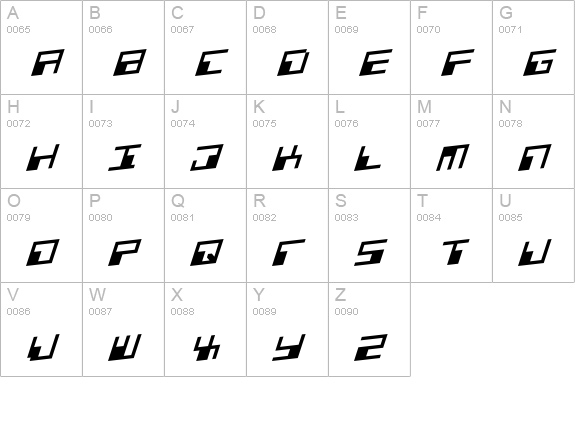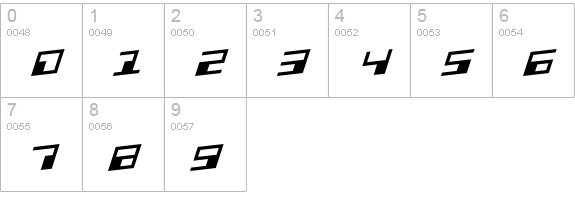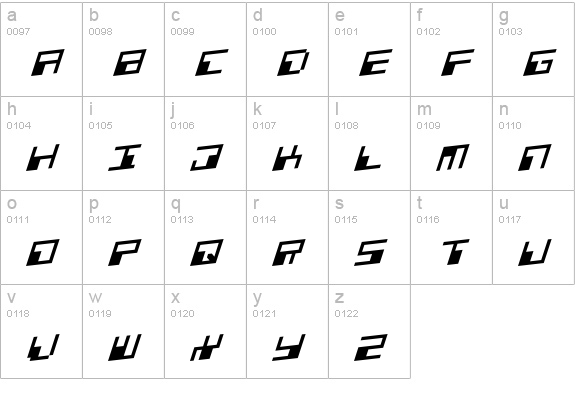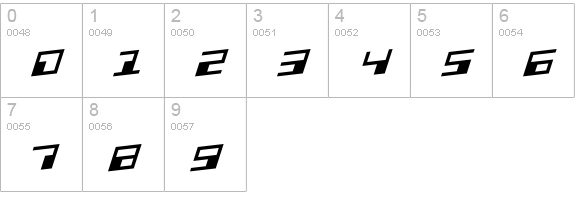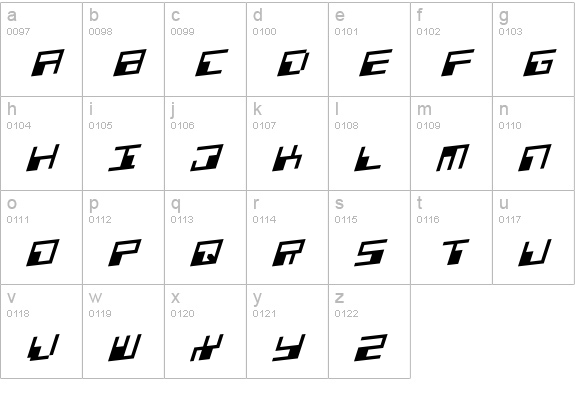
The Phaser Bank Rotalic font is a unique and stylish typeface that exudes a sense of futuristic sophistication. Its sleek and slanted letters give off a sense of movement and dynamism, making it perfect for projects that require a touch of modern flair. Whether you're designing posters, logos, or digital artworks, this font will surely make your creations stand out. The best part? Phaser Bank Rotalic font is available for free download at FontsMarket.com. With just a few clicks, you can add this eye-catching font to your collection and use it in your projects without any cost. Don't miss out on the opportunity to elevate your designs with this striking and versatile typeface. Download Phaser Bank Rotalic font today and let your creativity soar!